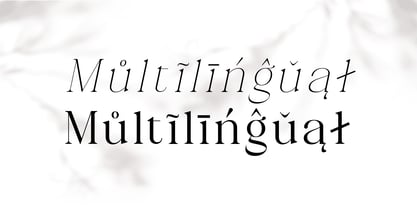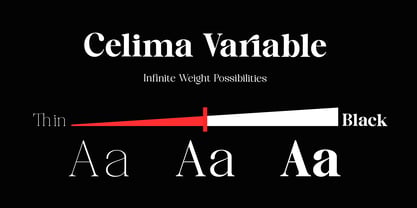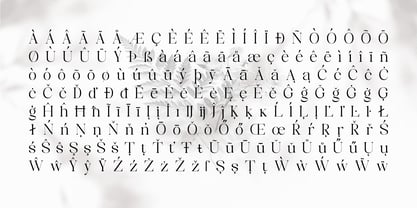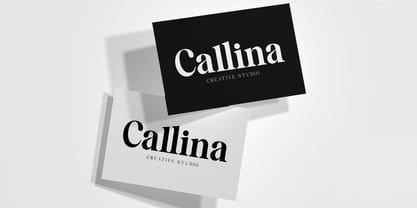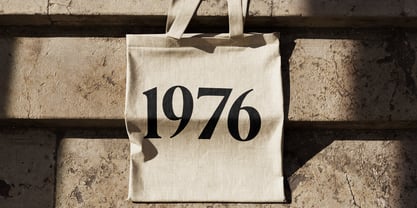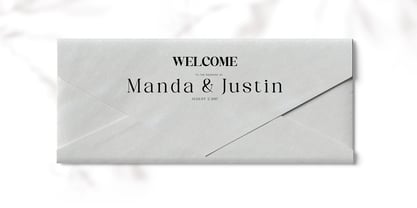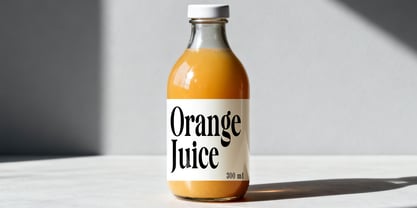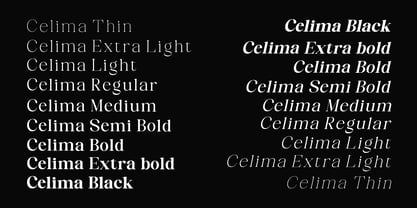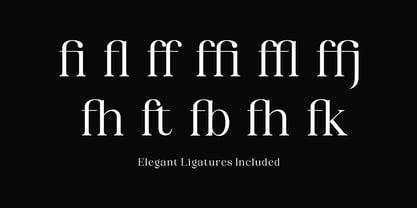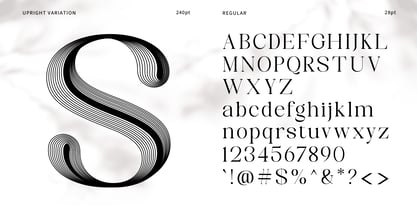
Celima
by Nk Studio
Celima is a refined serif font family designed to convey timeless elegance with a modern twist. Crafted with precision and harmony, Celima features strong vertical strokes, gracefully sculpted serifs, and smooth, confident curves that provide a sophisticated yet powerful visual presence. Its high-contrast structure and distinctive letterforms make it perfectly suited for luxury branding, editorial headlines, fashion campaigns, logo design, packaging, and premium print projects. With over 20 variable font styles, Celima offers incredible flexibility—from subtle and light expressions to bold, impactful statements. Variable font technology allows seamless control over weight and style, empowering designers with complete creative freedom across both digital and print media. Every detail in Celima is meticulously refined to ensure excellent readability while maintaining a striking and elegant character. Its balanced proportions and smooth rhythm make it ideal for magazine layouts, book covers, advertisements, social media visuals, and high-end corporate identities. Whether you're creating a sophisticated brand or bold editorial typography, Celima strikes the perfect balance between style, flexibility, and performance. Elevate your typography with Celima — where classic elegance meets modern design excellence.